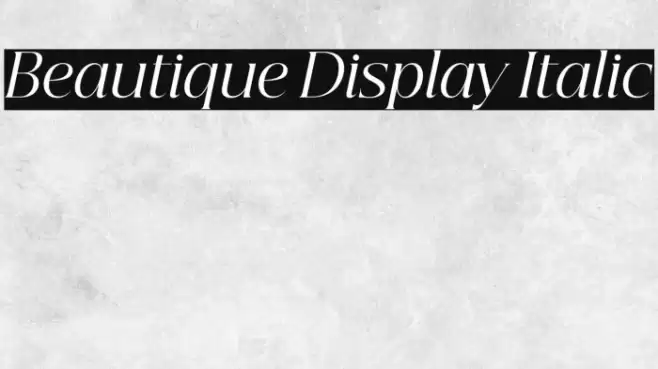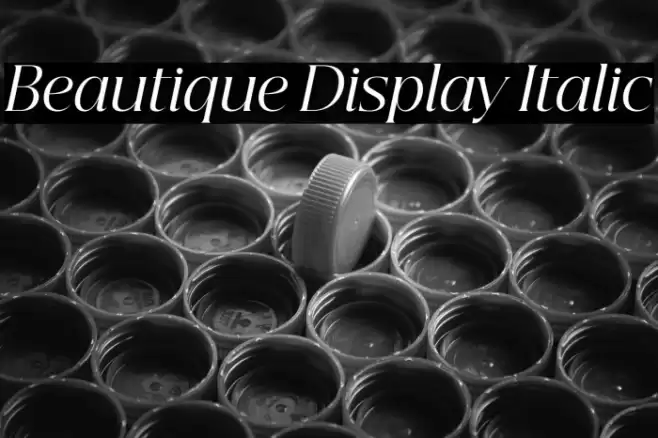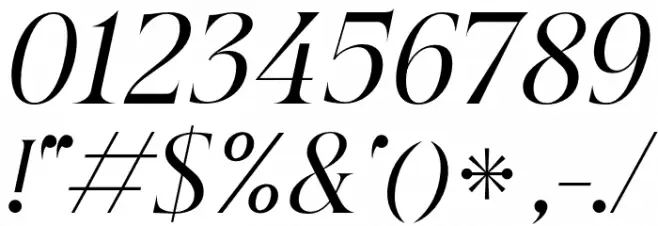
Beautique Display Italic Font
Beautique Display Italic Description
This elegant and sophisticated font features a refined italic style with smooth, flowing lines and a graceful slant. The characters are well-balanced, offering a harmonious blend of curves and sharp edges. The uppercase letters are tall and commanding, while the lowercase letters maintain a consistent flow, enhancing readability. The numerals are distinct and clear, complementing the overall aesthetic. Special characters are thoughtfully designed, maintaining the font's cohesive look. This typeface exudes a sense of luxury and modernity, making it suitable for high-end branding and editorial design.
An elegant italic font with smooth lines and a graceful slant, perfect for luxury branding from Uncategorized fonts.
- Proposed Projects: Ideal for luxury branding, editorial design, fashion magazines, and elegant invitations.
- Use Case: Headlines, Logos, Editorial design